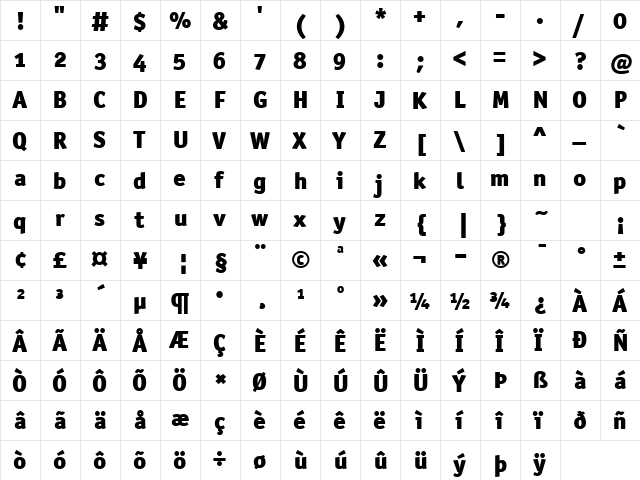
OfficinaSanBlkOSITCTT Black
| Foundry | International Typeface Corporation |
| Designer | Erik Spiekermann/Ole Schaefer |
Design Context for OfficinaSanBlkOSITCTT Typeface
OfficinaSanBlkOSITCTT takes a measured approach to typography — its balanced proportions and neutral character make it a reliable workhorse for both digital and print work.